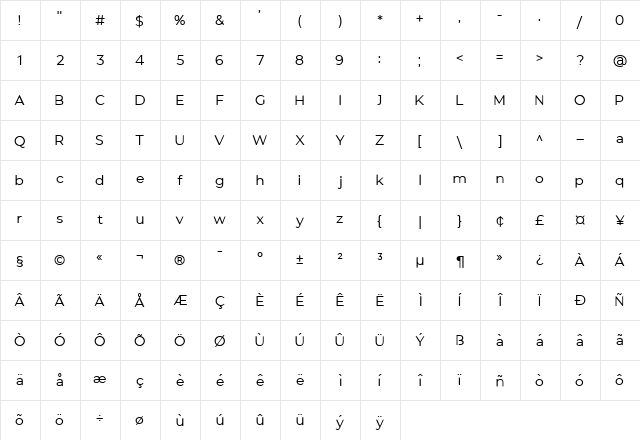
GANTIC Regular
| Designer | Ahsan |
Design Context for GANTIC Typeface
GANTIC takes a measured approach to typography — its balanced proportions and neutral character make it a reliable workhorse for both digital and print work.